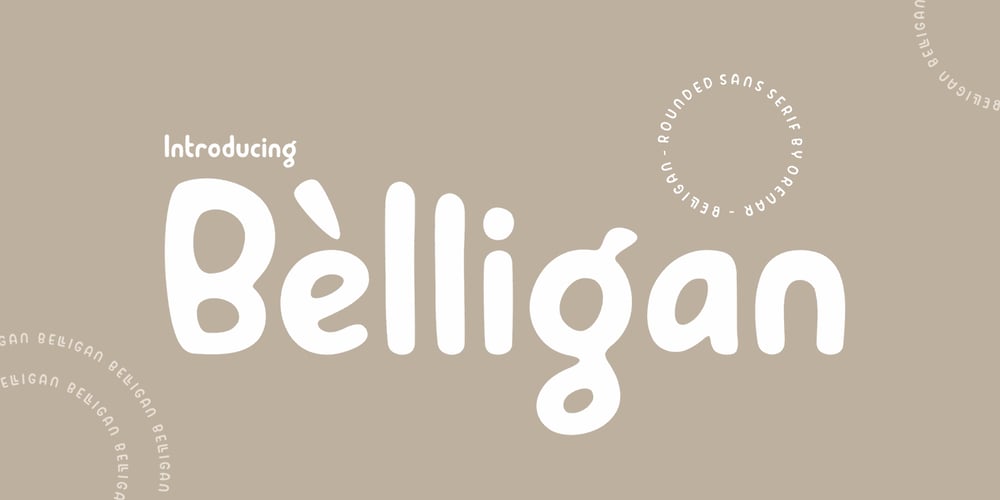
Belligan Font Family was designed by Lia Wijayanti and published by Orenari. Belligan contains 1 styles and family package options. Belligan is rounded sans serif which looks calm, feminine yet elegant. Belligan is perfect for your next project, if your project is decided to be simple, modern, clean, and professional touch. Belligan Features: – All Character A-Z, a-z, numeral & punctuation. – Ligatures (BB, CC, DD, EE, FF, GG, LL, MM, NN, OO, PP, RR, SS, TT, Th, ZZ, bb, cc, dd, ee, ff, fi, gg, ll, mm, nn, oo, pp, rr, ss, tt, ti, zz) – Multilingual Support. Oh, and please don’t hesitate to drop me a message if you have any questions or you wanna share some jokes! 🙂 Thank You, Ari